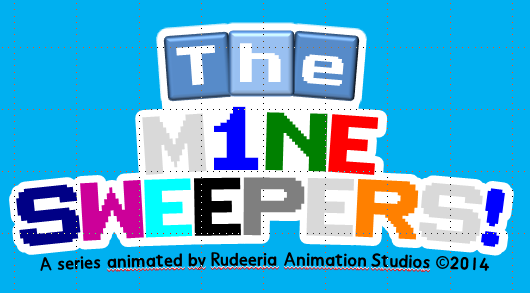
• Inspired by the numbers on the original texture for the game Minesweeper, this font has lowercases, and more symbols.
Interesting lowercase Q. Could probably use some more width for the space?
Good question. I do not know how to adjust the space between words. In the meantime, if you need to type space, try hitting it twice.
Okay, I figured it out, and changed the space!
I made a logo with your font! - Made in PowerPoint
The MineSweepers, stylized as "The M1NESWEEPERS!" is a fanmade series inspired by NumberBlocks - The MineSweeper numbers have the color of algebraliens. This explains why the 3rd "E" in "Sweepers" is white (Nine) and the "R" is orange (Ten).